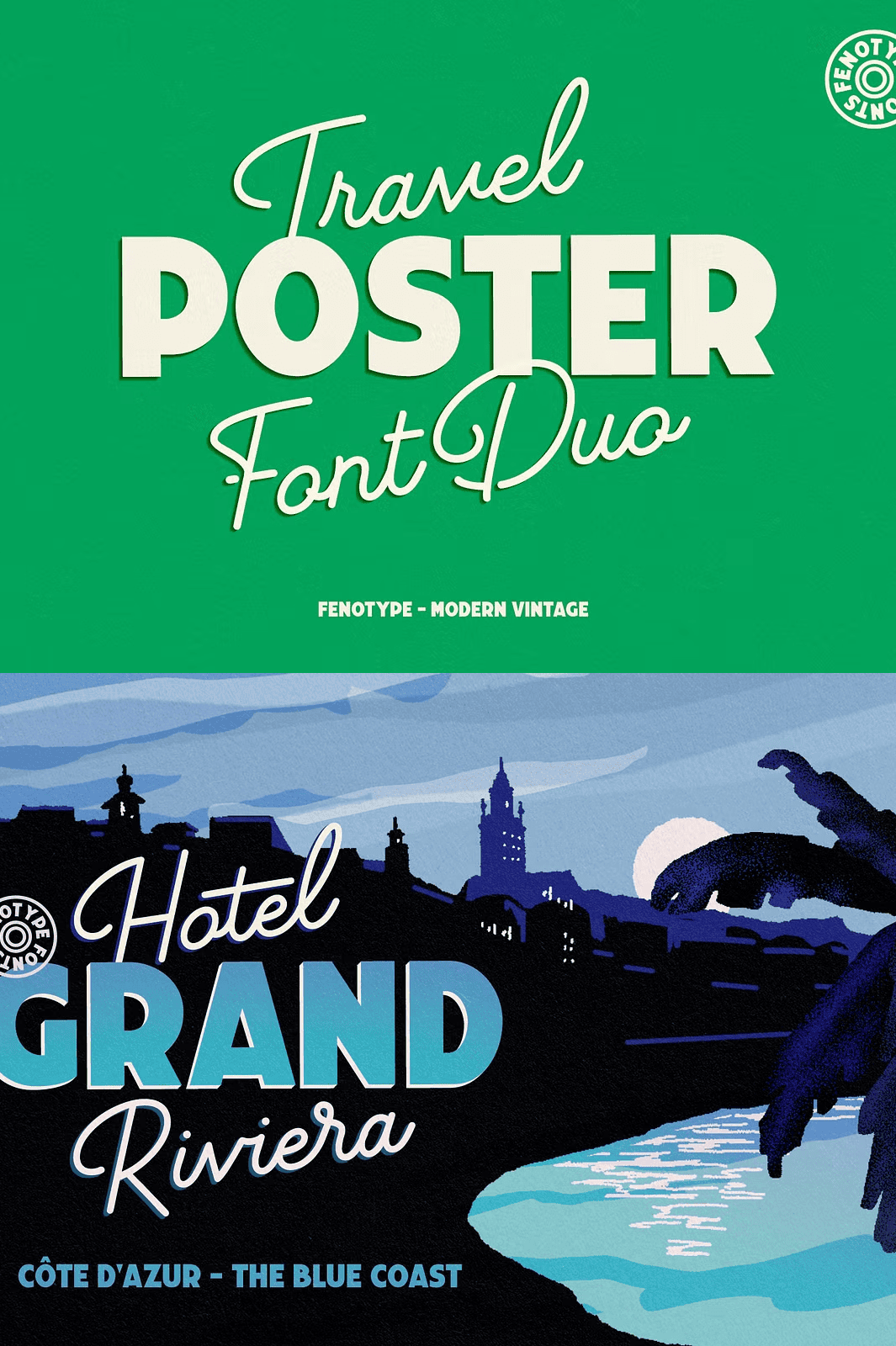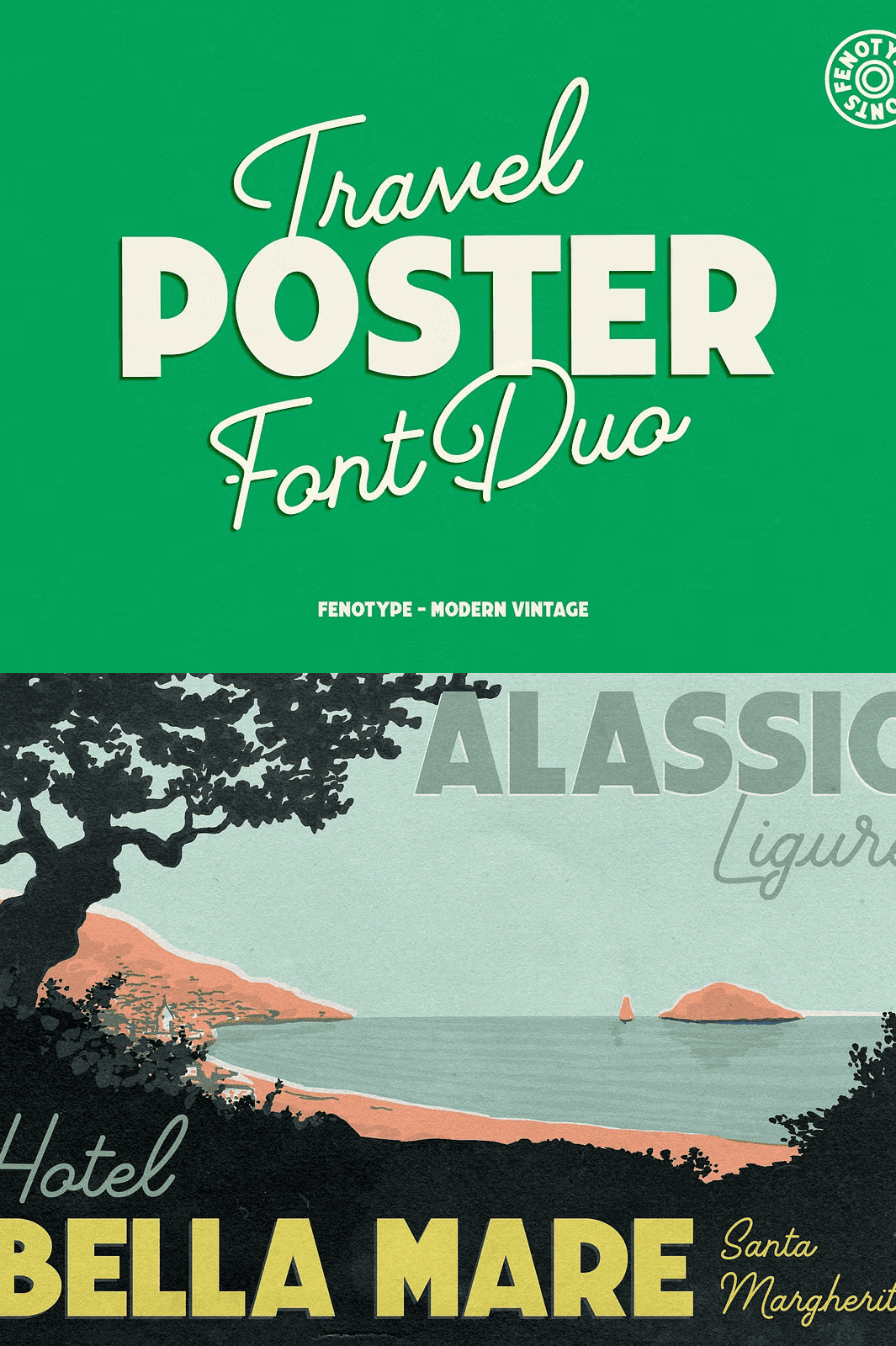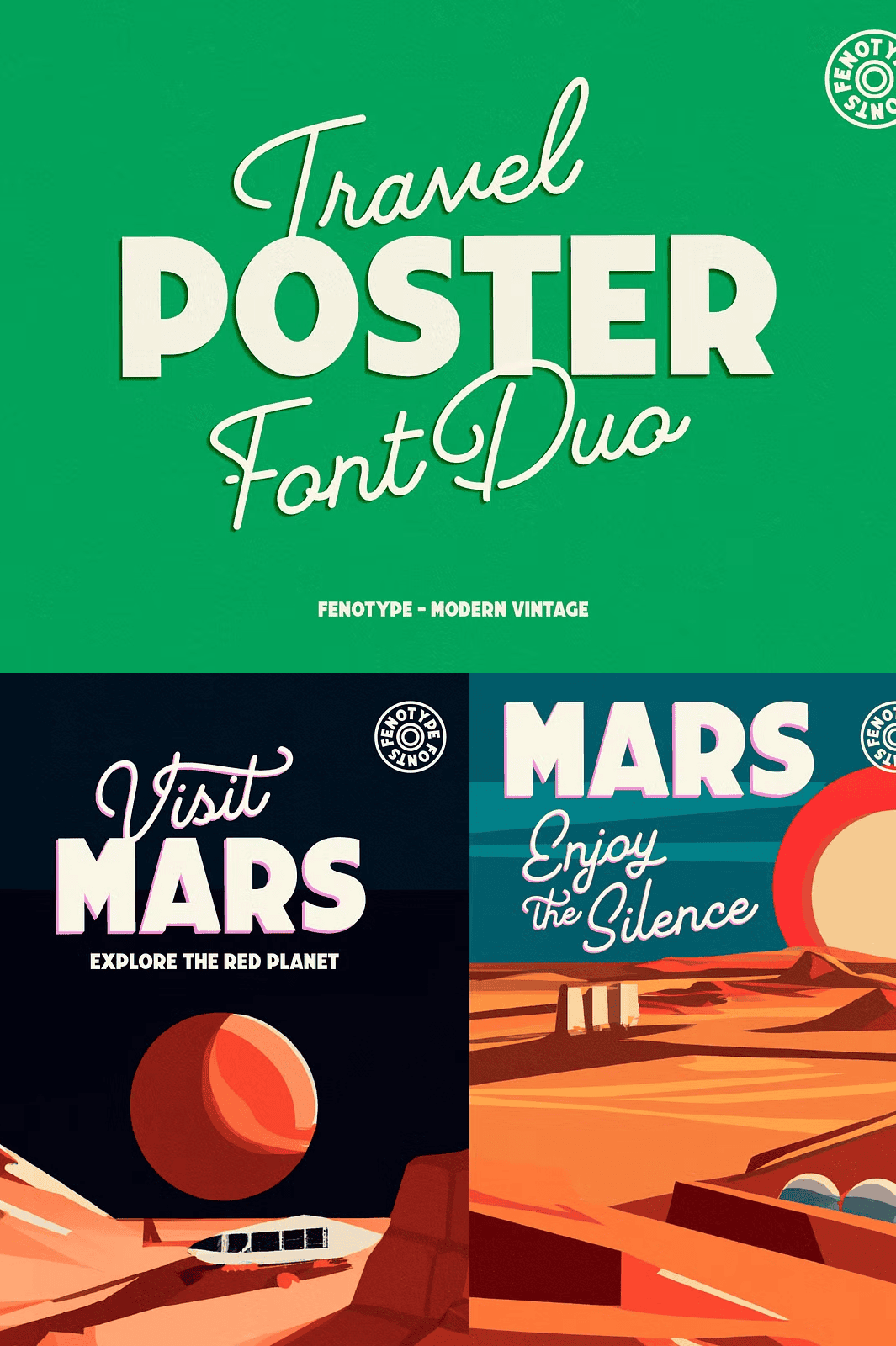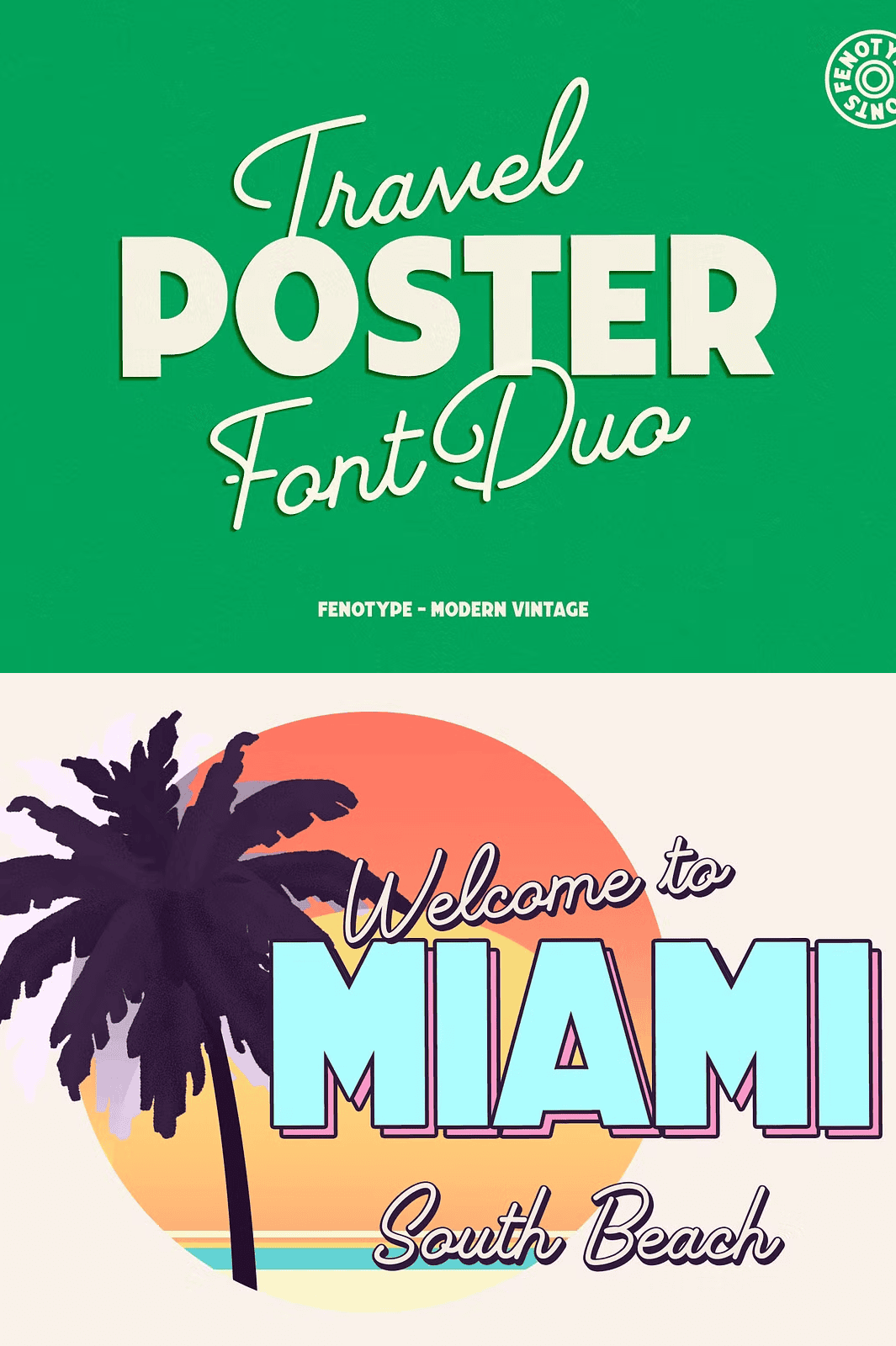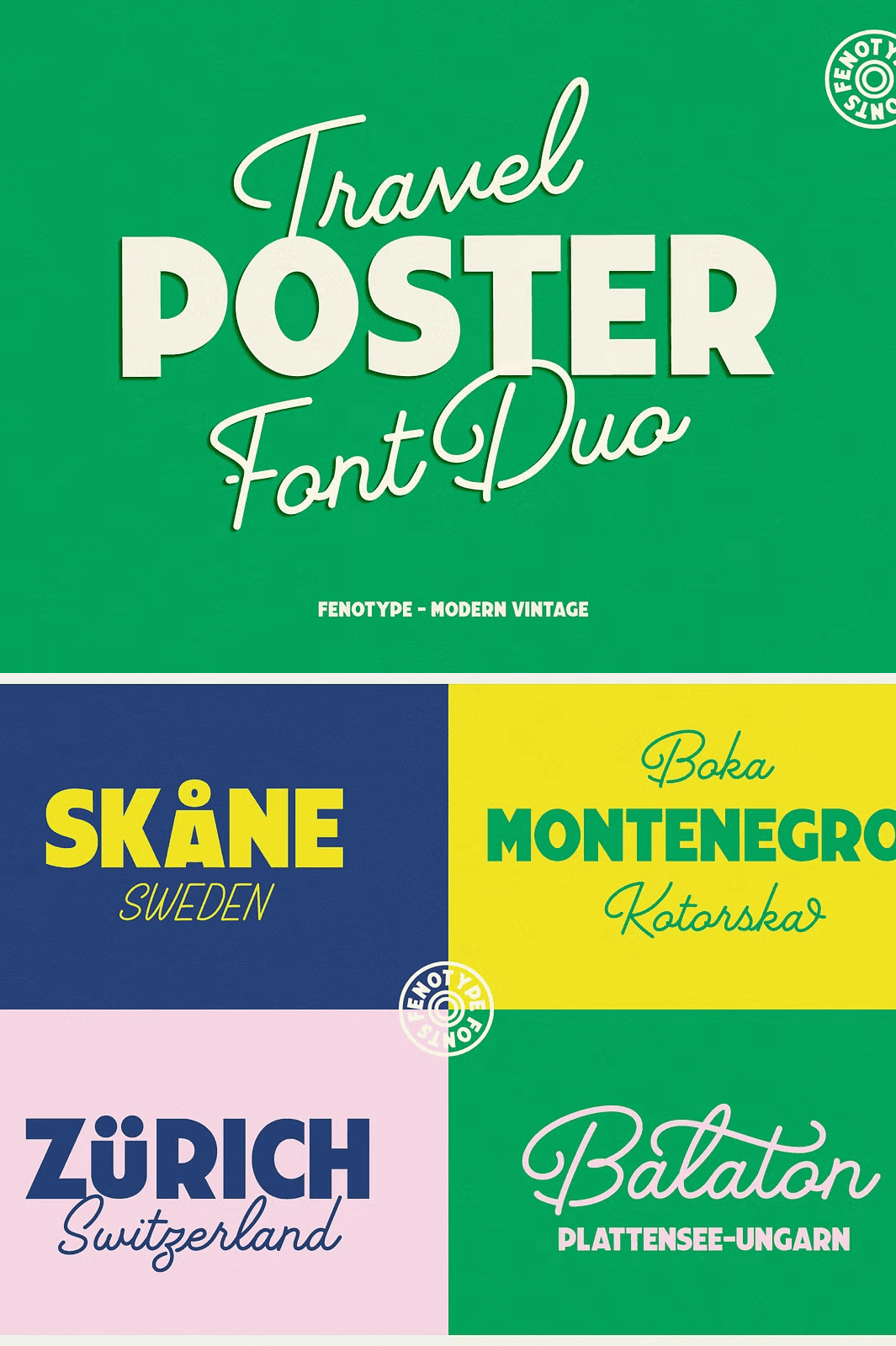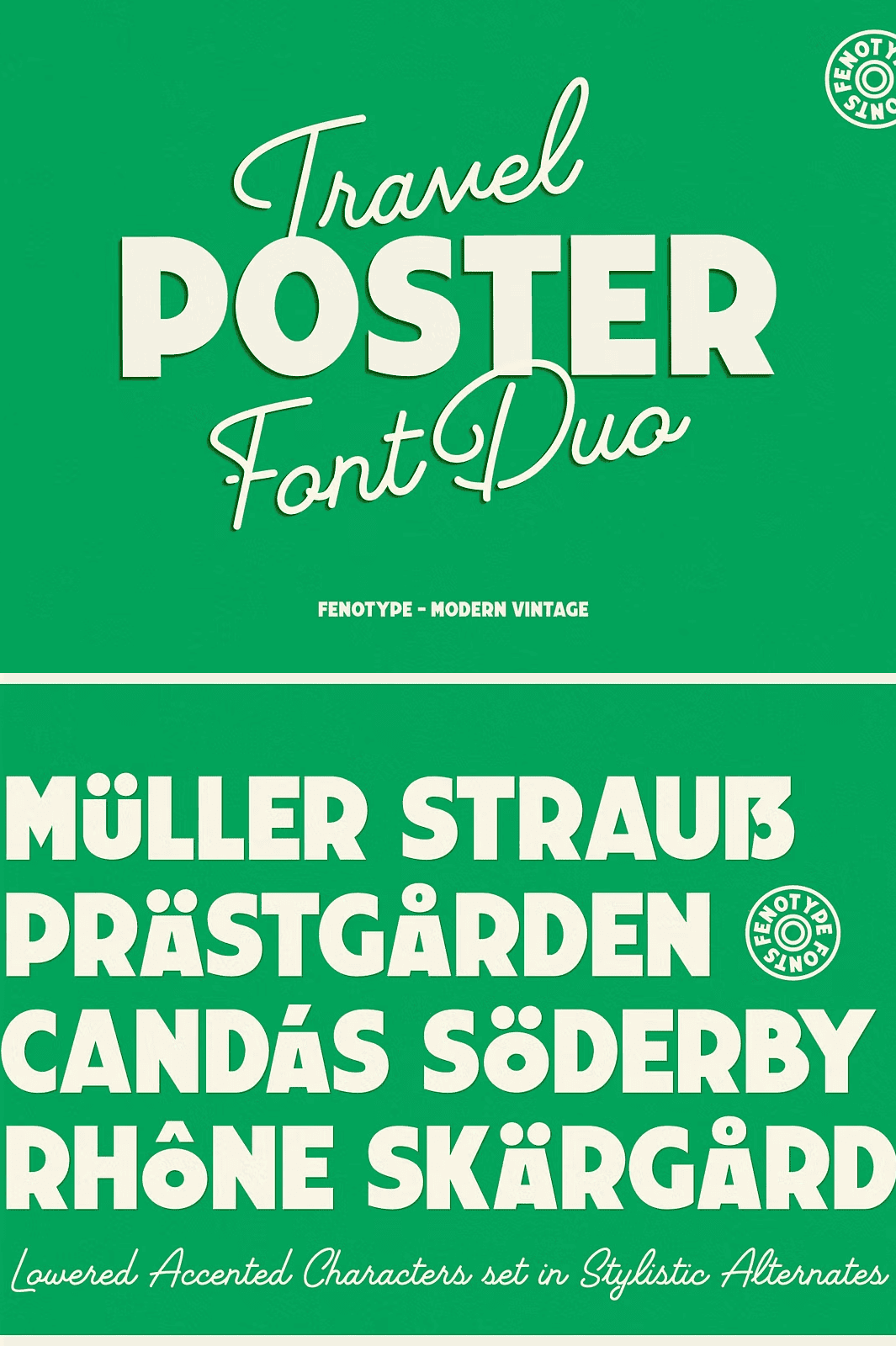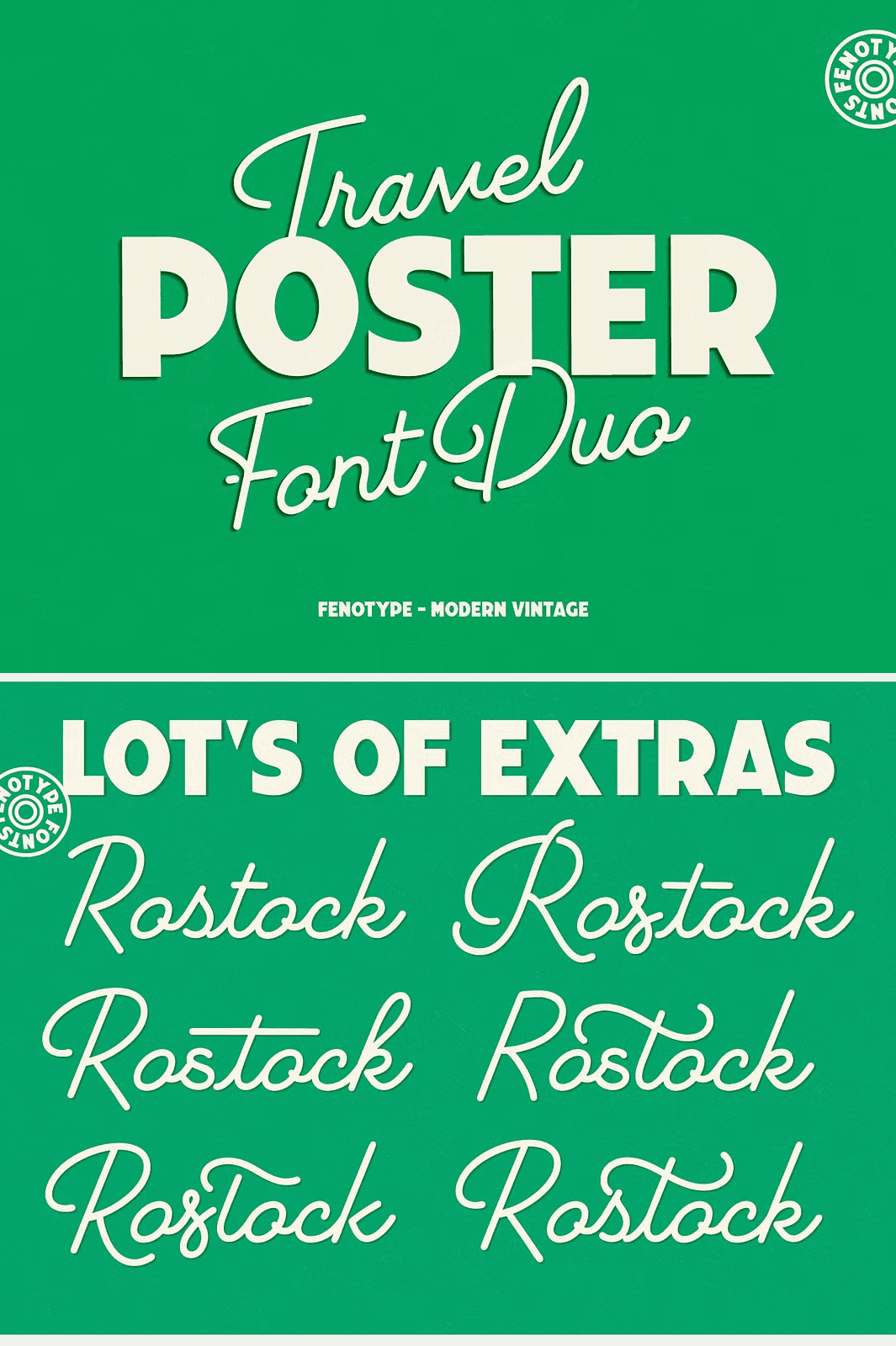
Unleash the Spirit of Mid-Century Travel with a Powerful Font Pair
Step into the golden age of travel with **Travel Poster Font Duo**, a meticulously crafted typeface duo that captures the bold energy and nostalgic charm of last century’s iconic travel advertisements. Inspired by vintage posters from the 1930s to 1960s, this duo blends a slender, monoline script with a heavy, vernacular sans creating a dynamic contrast that commands attention and tells a story.
Whether you’re designing a concert poster, crafting a luxury brand identity, or illustrating a travel blog cover, this font pair delivers instant visual impact. It’s not just a font it’s a mood, a memory, a journey in typography.
Travel Poster Script — Fluid Lines, Graceful Movement
The **Travel Poster Script** embodies the elegance of hand-lettered poster art. With its consistent stroke width, slender form, and flowing curves, it mimics the expressive hand of a sign painter from bygone eras. Designed for maximum readability and visual rhythm, this script features:
– ✦ Monoline structure for clean, balanced lines
– ✦ Extended ascenders and descenders for dramatic vertical presence
– ✦ Full range of **OpenType features**, including Swash, Titling Alternates, and Small Caps
– ✦ Contextual Alternates enabled by default for natural, fluid letter connections
Use this script for headlines, event titles, product names, and brand slogans where personality and style are essential.
Travel Poster Sans — Bold Contrast, Bold Impact
Complementing the script, the **Travel Poster Sans** delivers a rugged, playful strength. Its thick, blocky forms and generous counter spaces provide a striking visual contrast, balancing the delicacy of the script. This font is ideal for anchoring your design with bold, readable text.
Key features include:
– ✦ Stylistic Alternates for lowered accented characters
– ✦ Tighter line spacing (leading) options for dense text blocks
Perfectly suited for taglines, captions, packaging labels, signage, and editorial layouts where authority meets fun.
Master the Art of Pairing: Script Meets Sans with Purpose
The true genius of Travel Poster lies in how the two fonts work together. Use the **Script** for your main title or brand name, then switch to the **Sans** for subheadings, dates, or background text. The matching x-heights, stroke weights, and visual tone ensure they speak the same language no friction, no jarring contrast.
Try these combinations:
– ✦ **Poster Design:** Script for “Journey to Bali”, Sans for “June 12–20, 2026”
– ✦ **Brand Identity:** Script for “Terra Voyage”, Sans for “Adventure Awaits”
– ✦ **Book Cover:** Script for “Wanderer’s Guide”, Sans for “To the Ends of Earth”
– ✦ **Packaging:** Script for product name, Sans for description in small caps
Create layouts that breathe, flow, and captivate.
Unlock Hidden Design Power with OpenType Features
Designed for Every Creative Project, Everywhere
Whether you’re a graphic designer, brand strategist, publisher, or independent artist, Travel Poster Font Duo delivers unmatched versatility:
– ✦ **Print Design:** Perfect for posters, flyers, packaging, and editorial layouts
– ✦ **Digital Media:** Optimized for social media banners, landing pages, and web headers
– ✦ **Branding:** Ideal for logos, business cards, and promotional materials
– ✦ **Publishing:** Use for chapter headings, book covers, or illustrated books